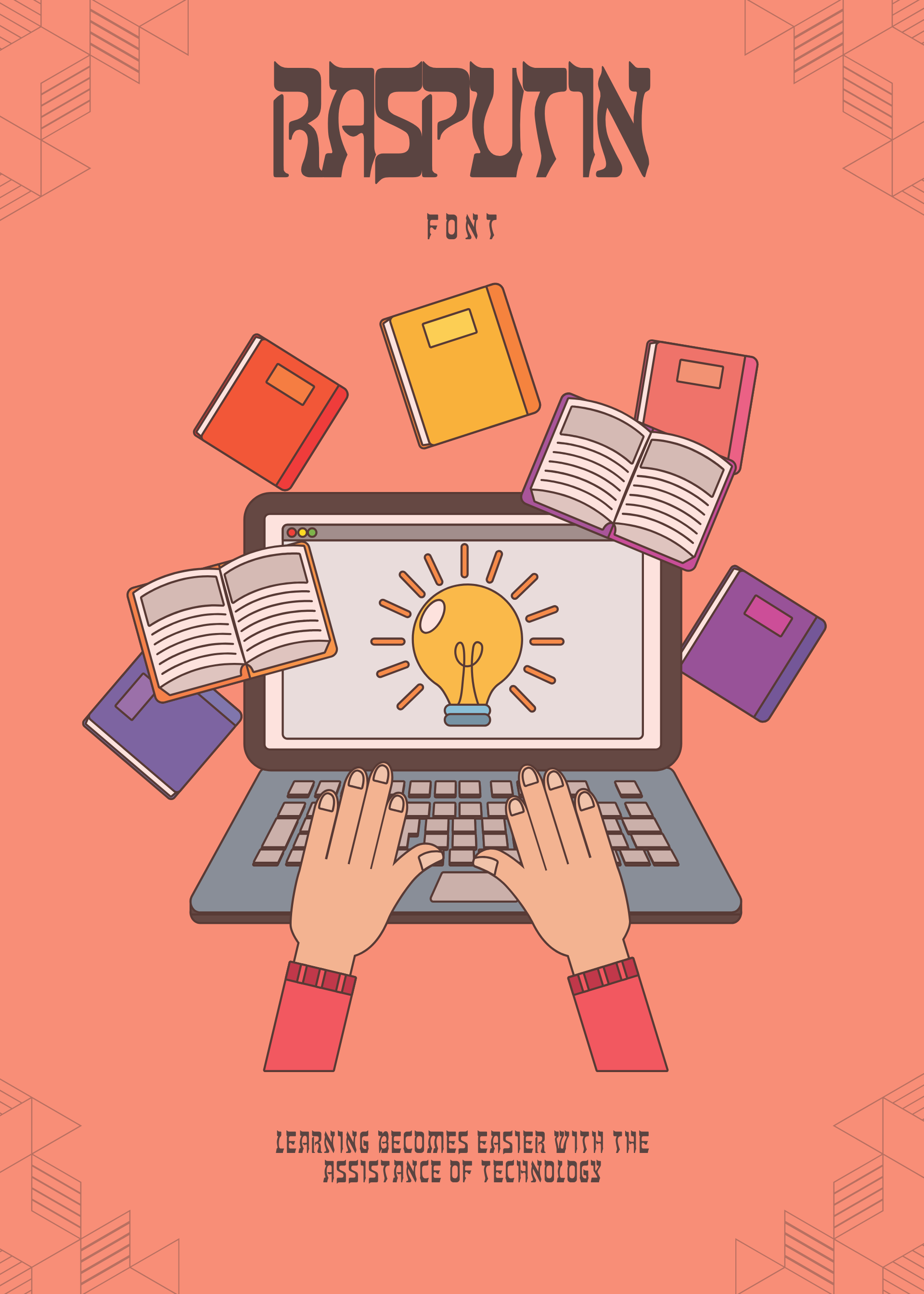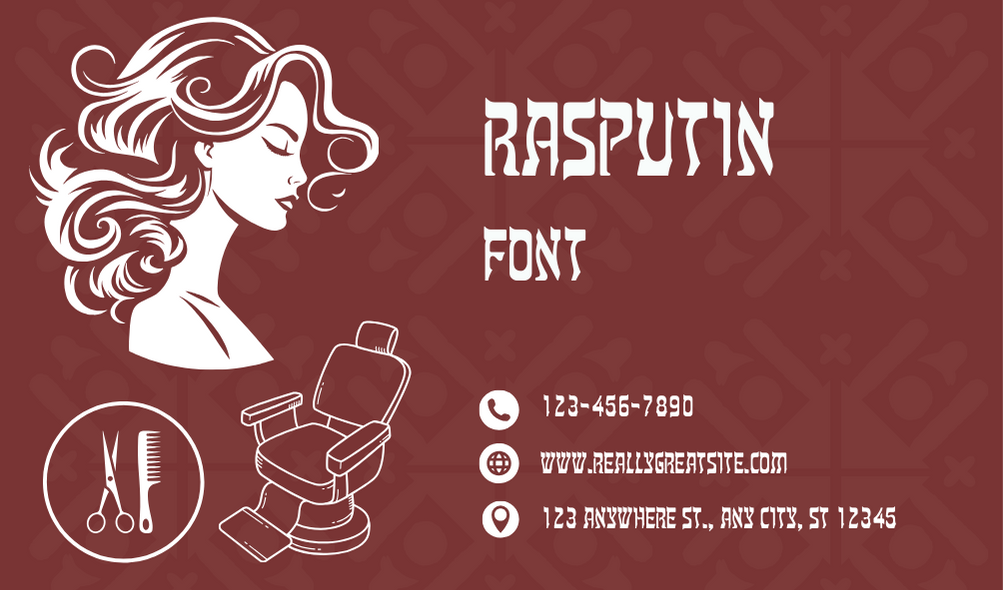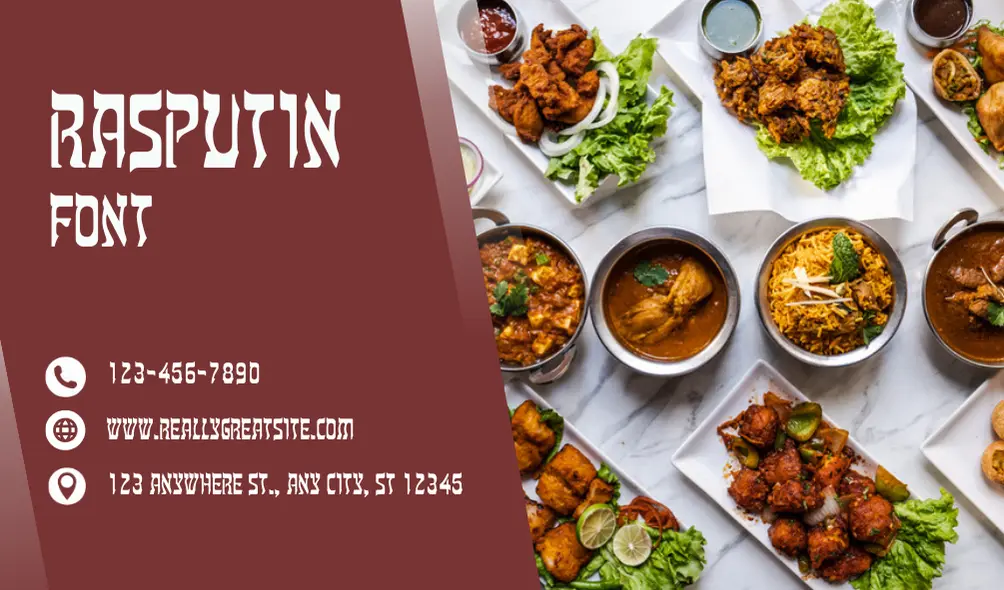
Rasputin is a fun and playful font that is perfect for a variety of designs.The font subfamily Regular means that it has a medium weight and is not too thin or too thick.